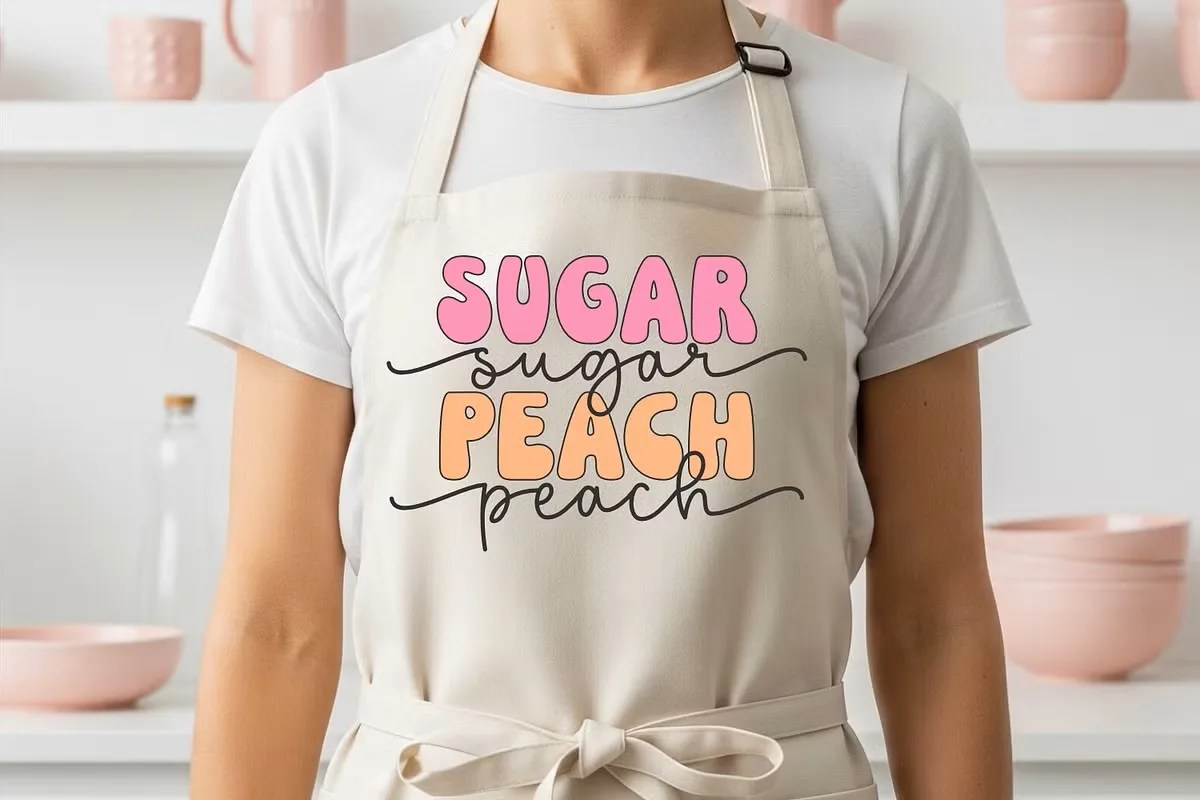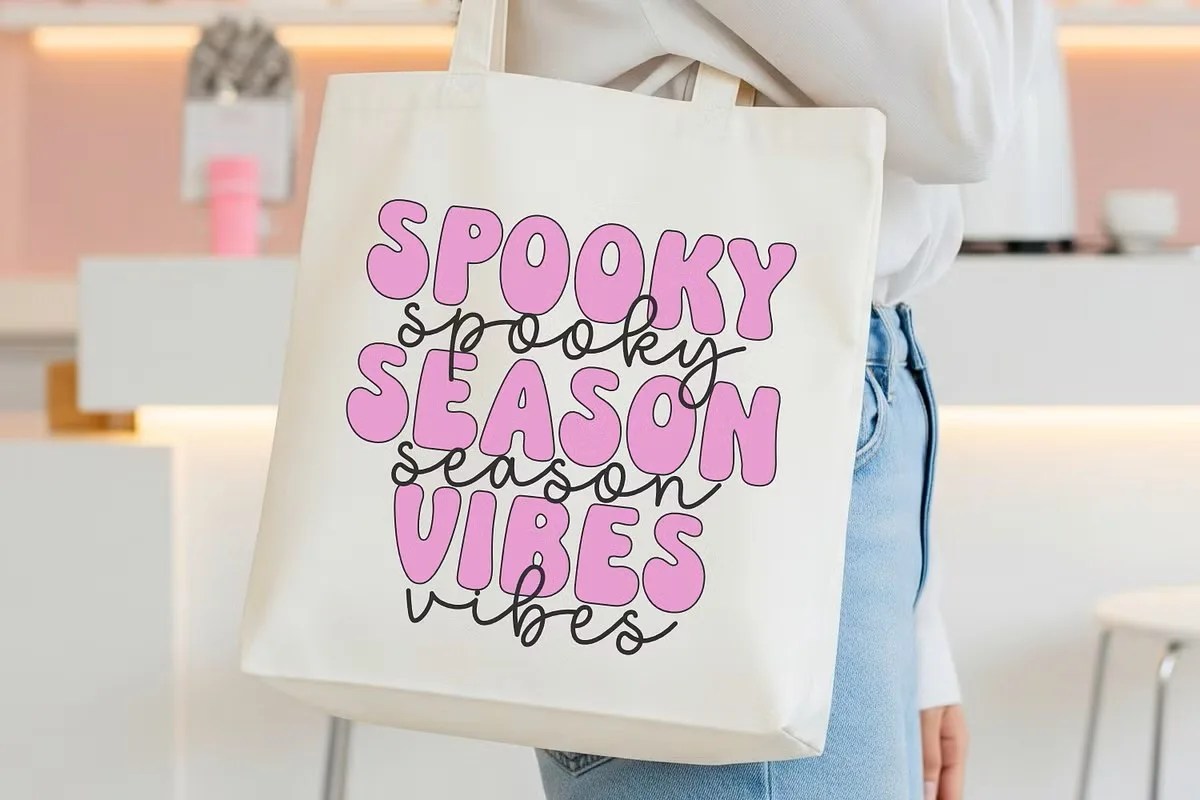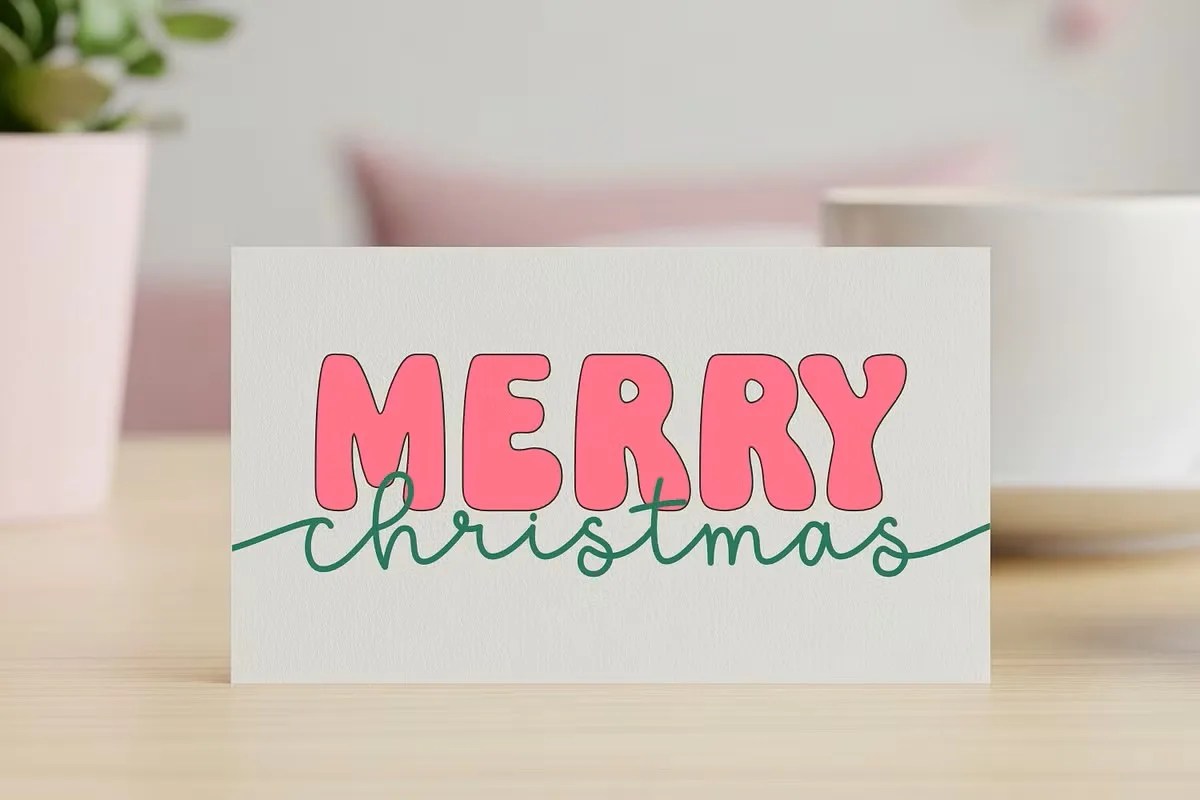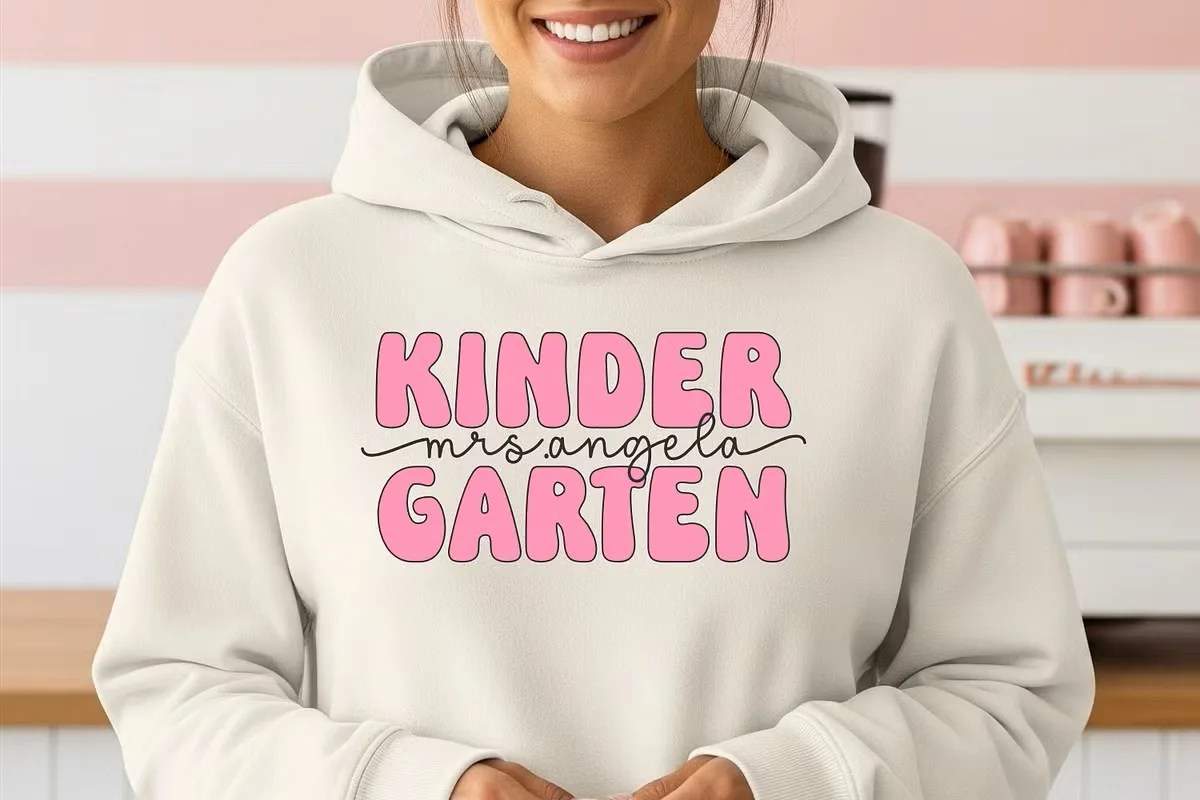
Fallin for You by Keithzo. This is a beautiful and romantic script font that flows with the effortless grace of a handwritten love letter. The font’s personal and heartfelt style adds a genuine touch of intimacy to any creative project. It’s designed to bring your most affectionate and cherished messages to life, turning simple words into a visual expression of love and connection.
This font is the perfect companion for heartfelt occasions. Specifically, it is an exceptional choice for designing complete wedding stationery suites. You can use it for everything from invitations and save-the-dates to place cards and thank you notes. Furthermore, this romantic script font is ideal for creating Valentine’s Day cards, anniversary gifts, and heartfelt social media posts. It also adds a layer of warmth and elegance to branding for businesses like wedding planners, photographers, and boutique florists.
• Elegant and creative script style
• Features a natural, handwritten flow
• Ideal for weddings, invitations, and branding
• Adds a heartfelt and personal touch
Fallin for You